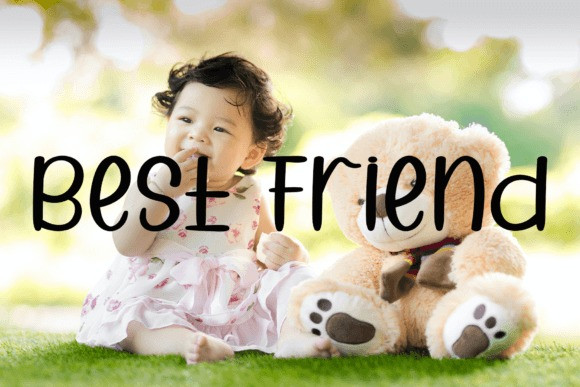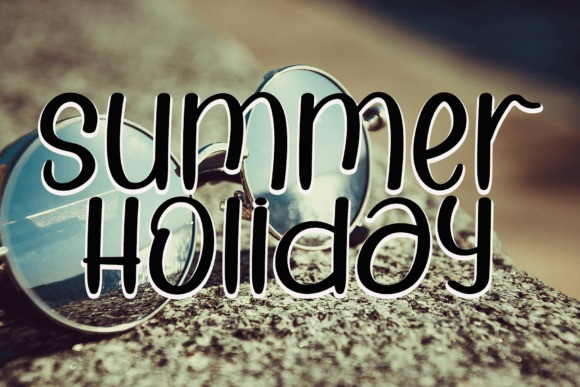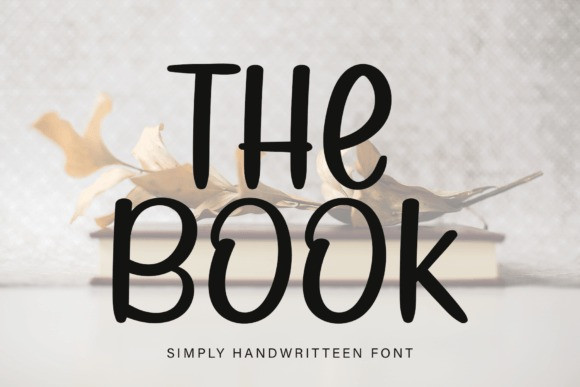
The Book Font
The Book Font is a cool and modern display font. Whether you’re using it for crafts, digital design, presentations, or creating greeting cards, this font has the potential to be your go-to font, whatever the occasion.